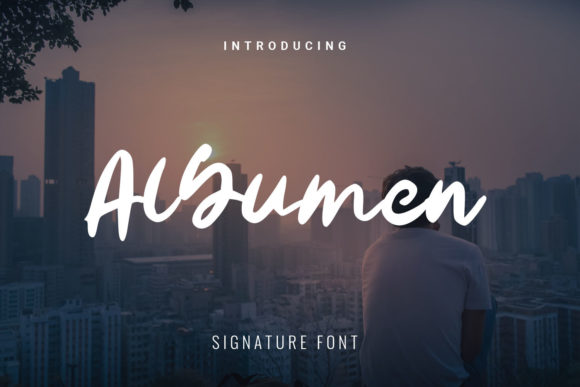
The Alsumen Font: A Beautiful Handwritten Addition to Your Design Arsenal
I’ll never forget the time I was working on a project for a client who requested a custom font that would make their brand stand out. I spent hours scouring the internet for the perfect handwritten font, but nothing seemed quite right. That was until I stumbled upon Alsumen – a beautiful, delicate script that instantly captured the essence of my client’s brand. In this article, I’ll share my experience with Alsumen, its features, and how to make the most of this stunning font.
An Honest Review of Alsumen Font
What I Love About Alsumen ✨
- 💫 Delicate and elegant: Alsumen’s well-rounded, cursive script is perfect for adding a touch of sophistication to any design.
- ✅ Highly versatile: This font can be used for a wide range of projects, from branding and packaging to invitations and social media graphics.
- 🌈 Beautifully crafted: The attention to detail in Alsumen is impressive, with subtle variations in line width and letterforms that give it a human touch.
While Alsumen is an excellent font, it’s not without its limitations. For example:
- 🤔 Limited use in body text: Due to its cursive nature, Alsumen may not be the best choice for long blocks of body text. It’s better suited for headings, titles, or short paragraphs.
- ⚠️ Some letters may require manual kerning: As with any font, you may need to adjust the kerning of certain letter combinations to achieve optimal results.
- Experiment with OpenType features like ligatures and stylistic alternates to add visual interest to your text.
The Story Behind Alsumen
Alsumen was designed with the intention of creating a beautiful, handwritten font that would bring a touch of elegance to any design. While the designer’s inspiration is unclear, it’s evident that Alsumen was crafted with love and attention to detail.
Q: What type of projects is Alsumen best suited for?
A: Alsumen is a versatile font that can be used for a wide range of projects, including branding, packaging, invitations, social media graphics, and more.